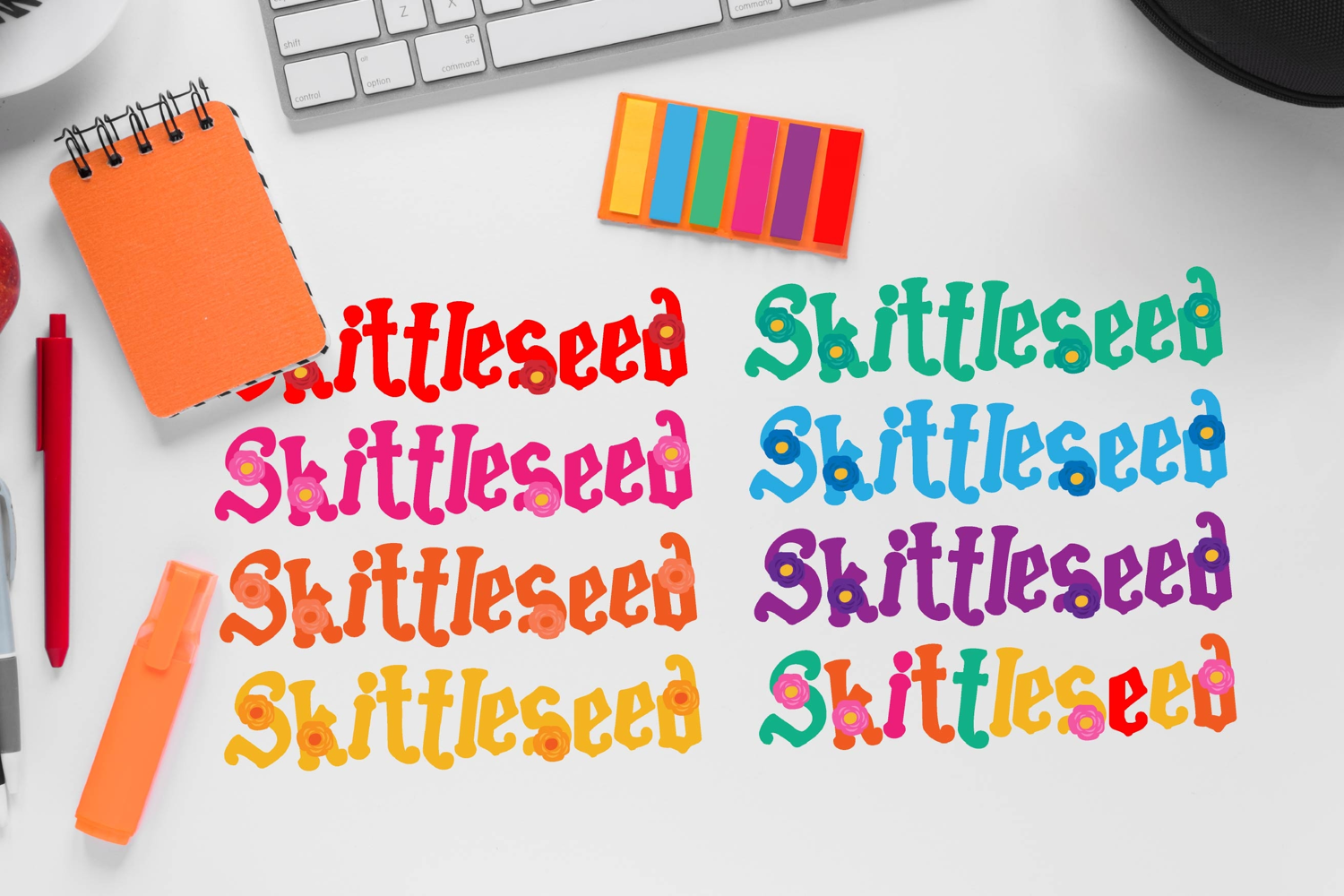
Skittleseed Color Bundle
This hand-crafted font bundle contains 8 full-color fonts. 7 of the fonts are solid colors: pink, purple, red, orange, yellow, green, and blue. And there is rainbow, which is a combination of them all. All the fonts have florals throughout and an alt case of each uppercase and lowercase letter in a different, bouncy position.